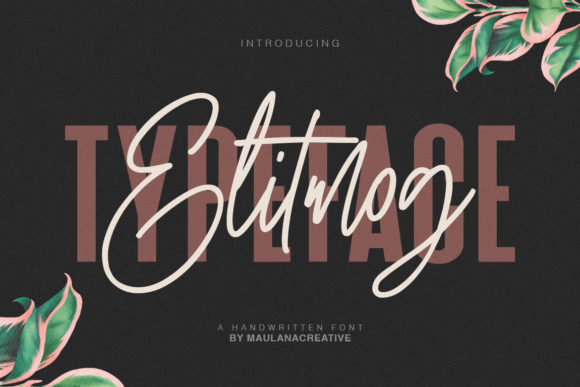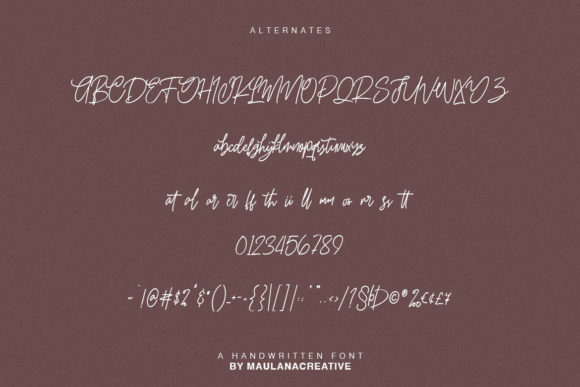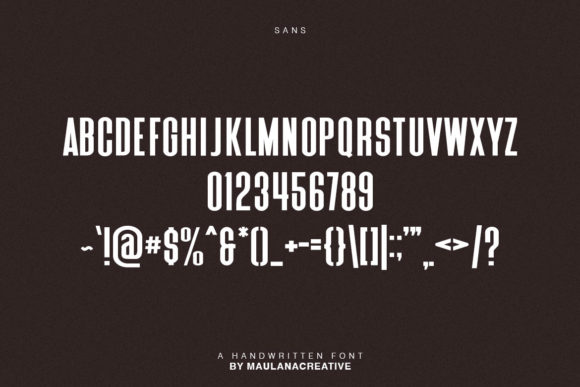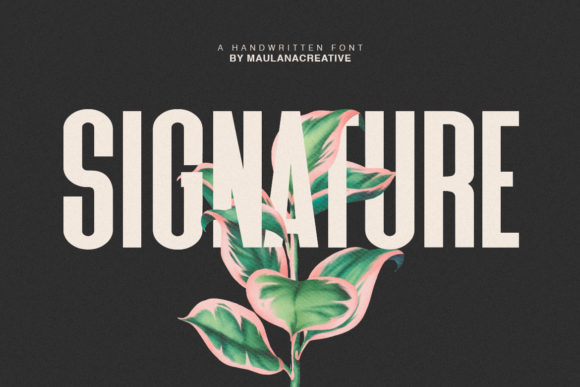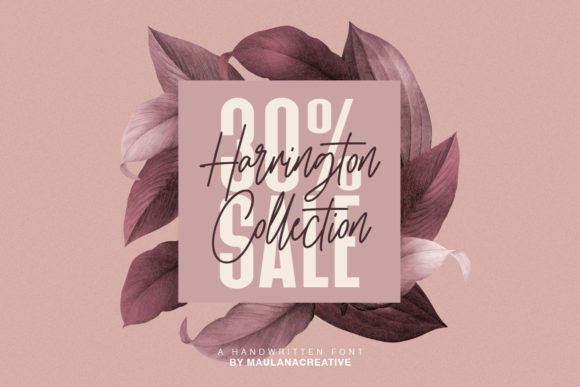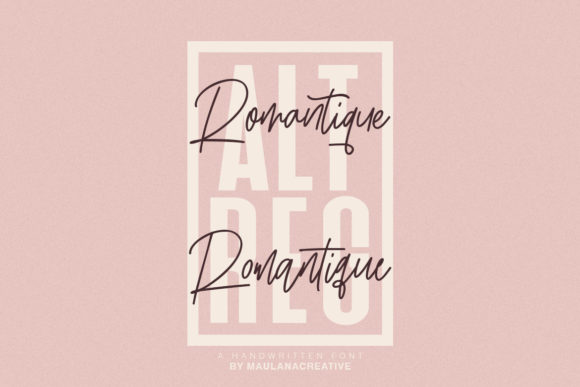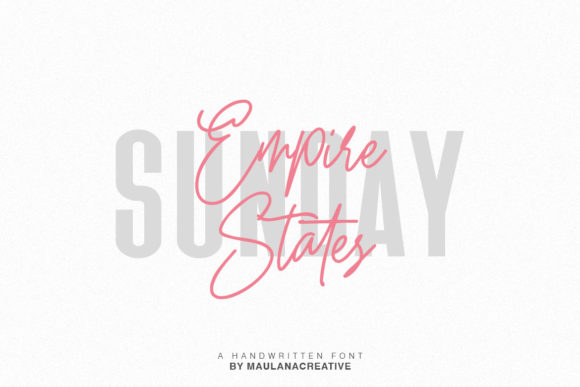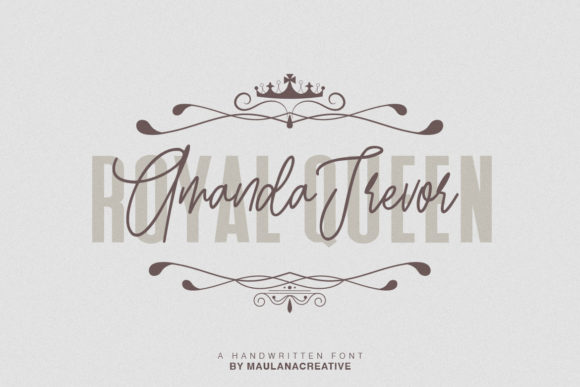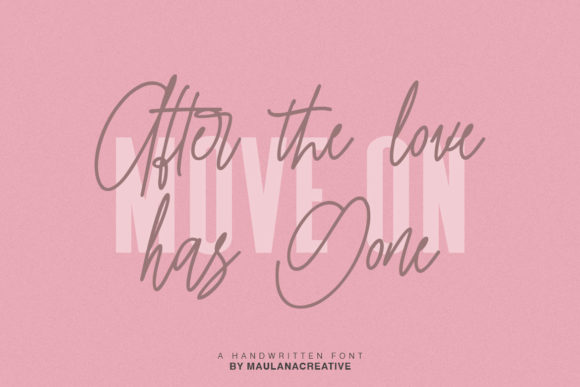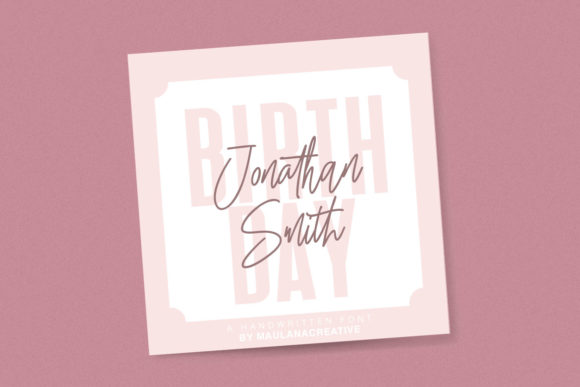
Elitmog Font
About Elitmog Font
Elitmog duo is a match made in heaven, the swashes of the script perfectly complement the sans serif’s style. Combining these two fonts on your next design will give your next design a playful and authentic feel.
This versatility means that this font can be used in a wide variety of applications from branding, crafting, to digital projects- the only limit is your imagination!